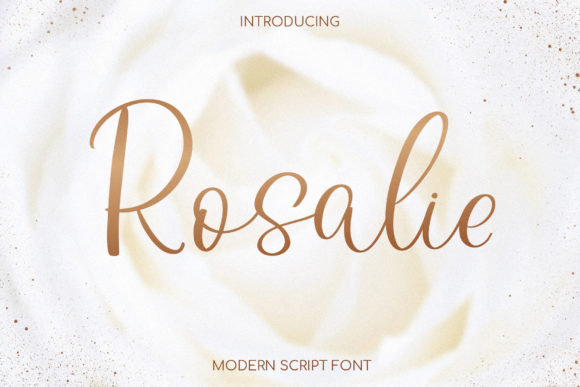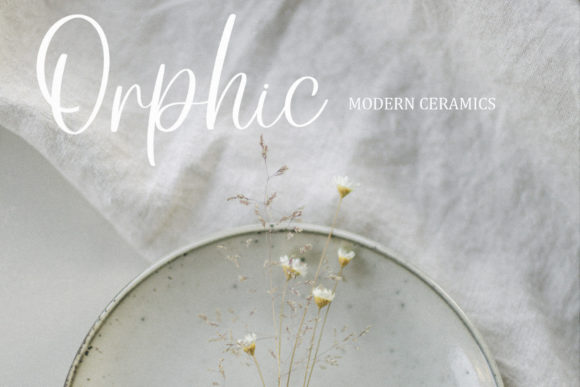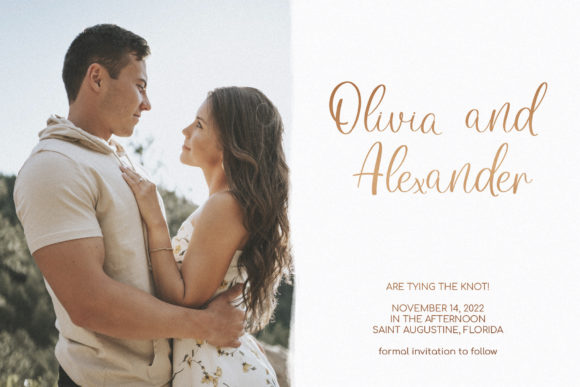
About Rosalie Font
Rosalie font is a stunning free-flowing script font crafted to elevate your design projects. Whether you’re working on packaging products, invitation cards, flyers, mockups, event posters, or any other creative endeavor, Rosalie font offers high-quality vibes that add a touch of elegance and style.
One of the standout features of Rosalie font is its versatility. Its free-flowing script style makes it suitable for a wide range of applications. Whether you’re designing for print or digital media, this font adapts effortlessly to any context, enhancing the visual appeal of your projects and leaving a lasting impression.
In addition to its stunning appearance, Rosalie font is incredibly easy to use. With its beautiful and balanced character, it ensures readability while adding a touch of sophistication to every design. Whether you’re a seasoned designer or just starting out, this font offers endless possibilities for creativity and expression.
In summary, Rosalie font is a free-flowing script typeface designed to bring high-quality vibes to any design project. With its beautiful character and versatile style, it fits seamlessly into a large design pool, making it perfect for a variety of applications. Let Rosalie font inspire your next project and watch as it transforms your designs into works of art!